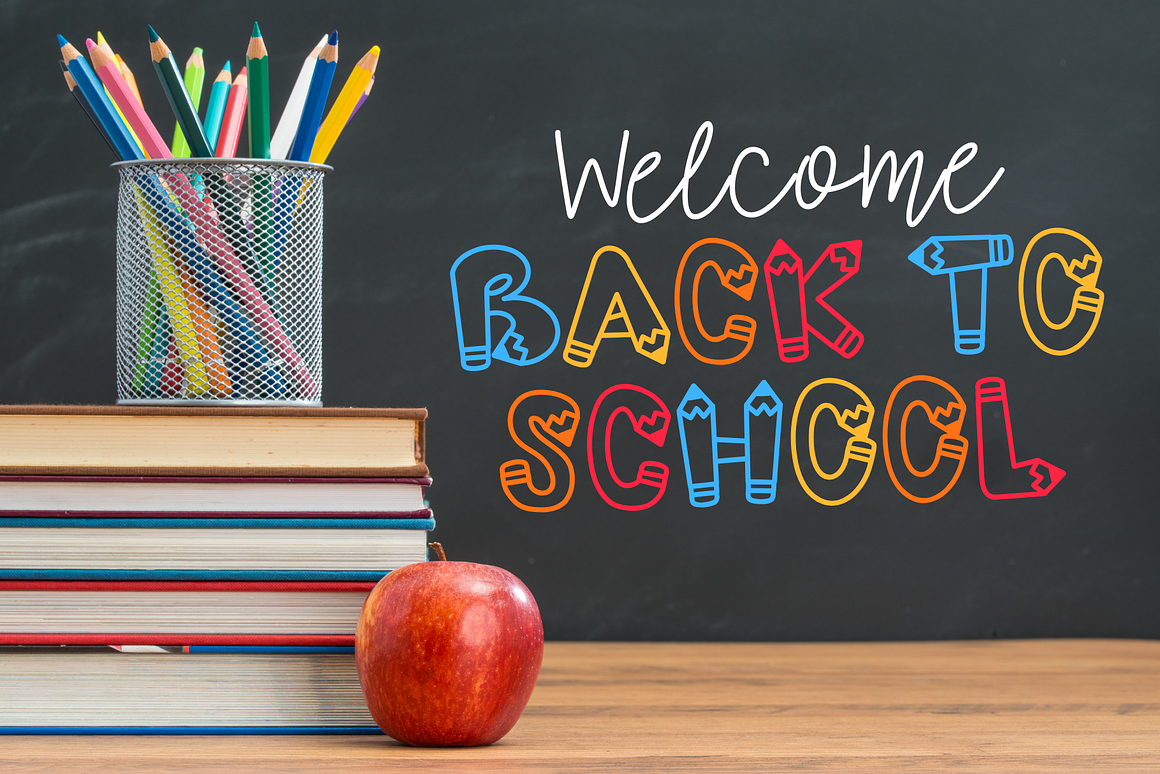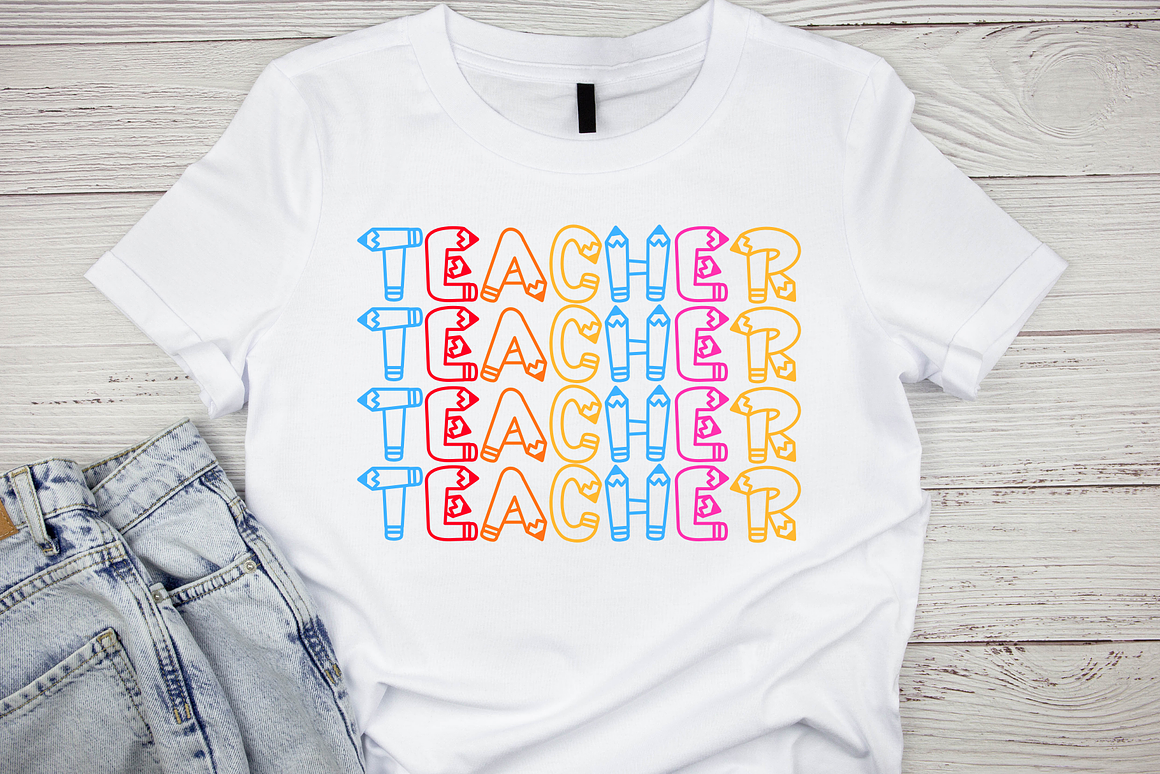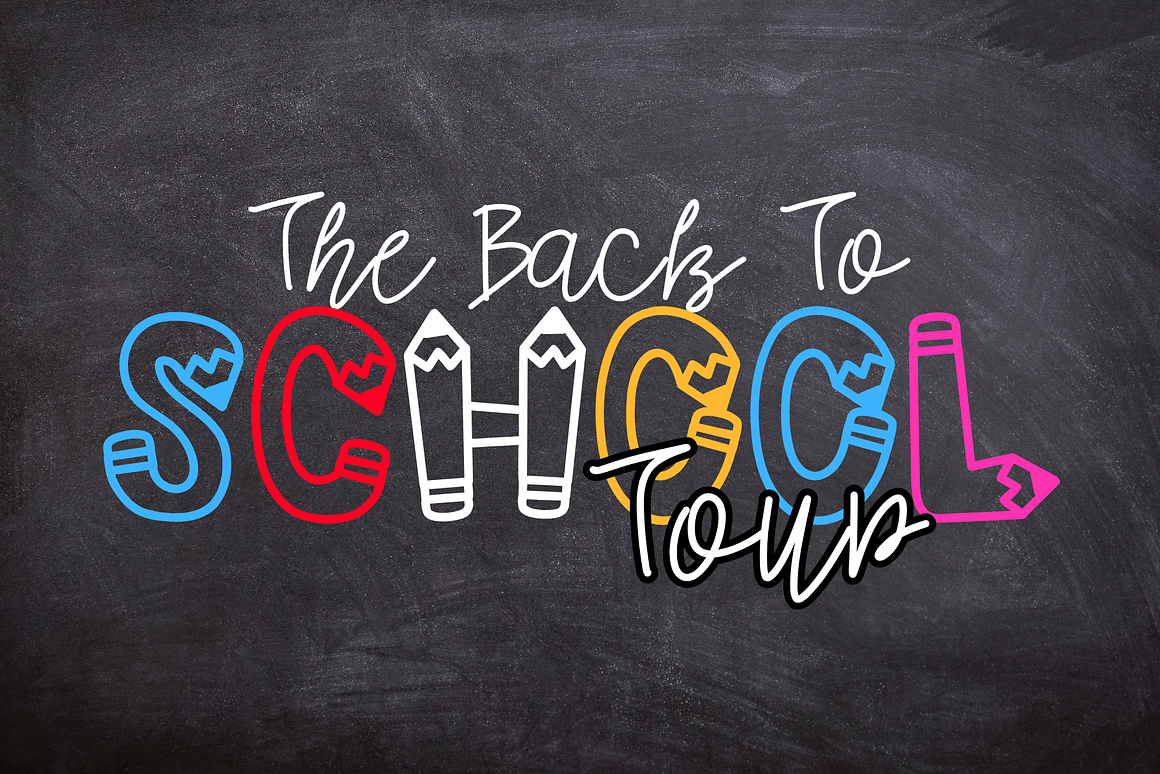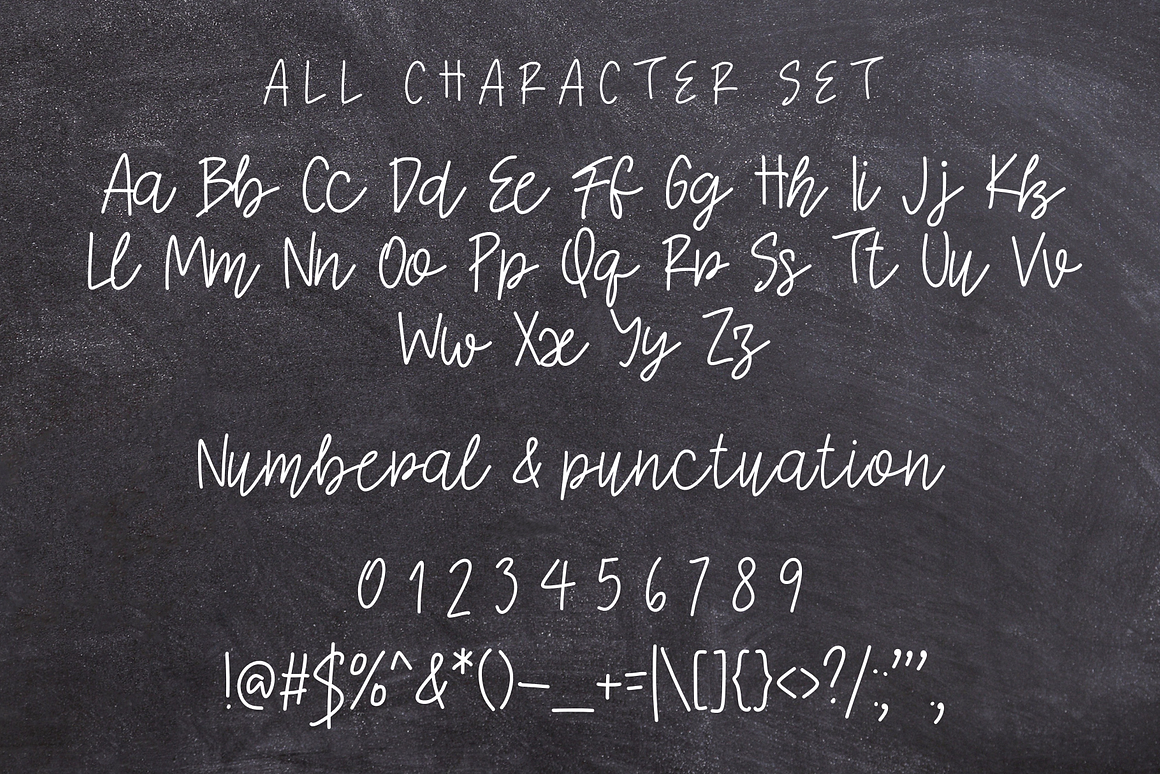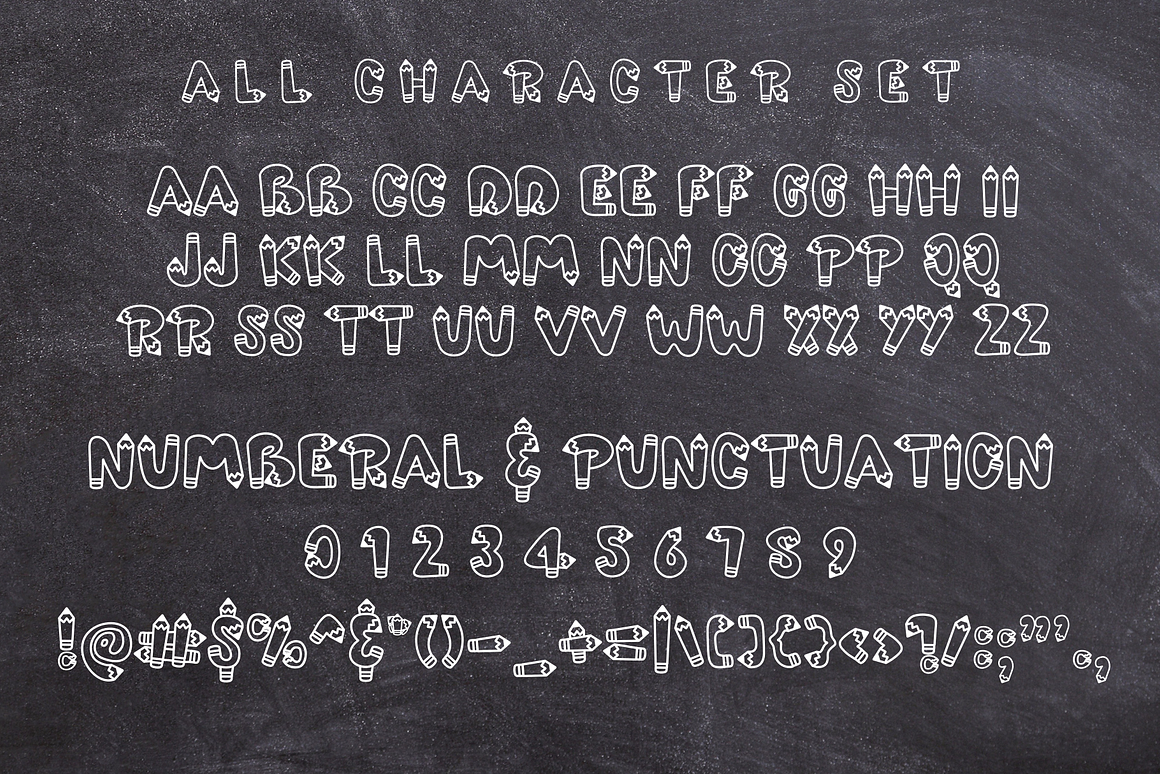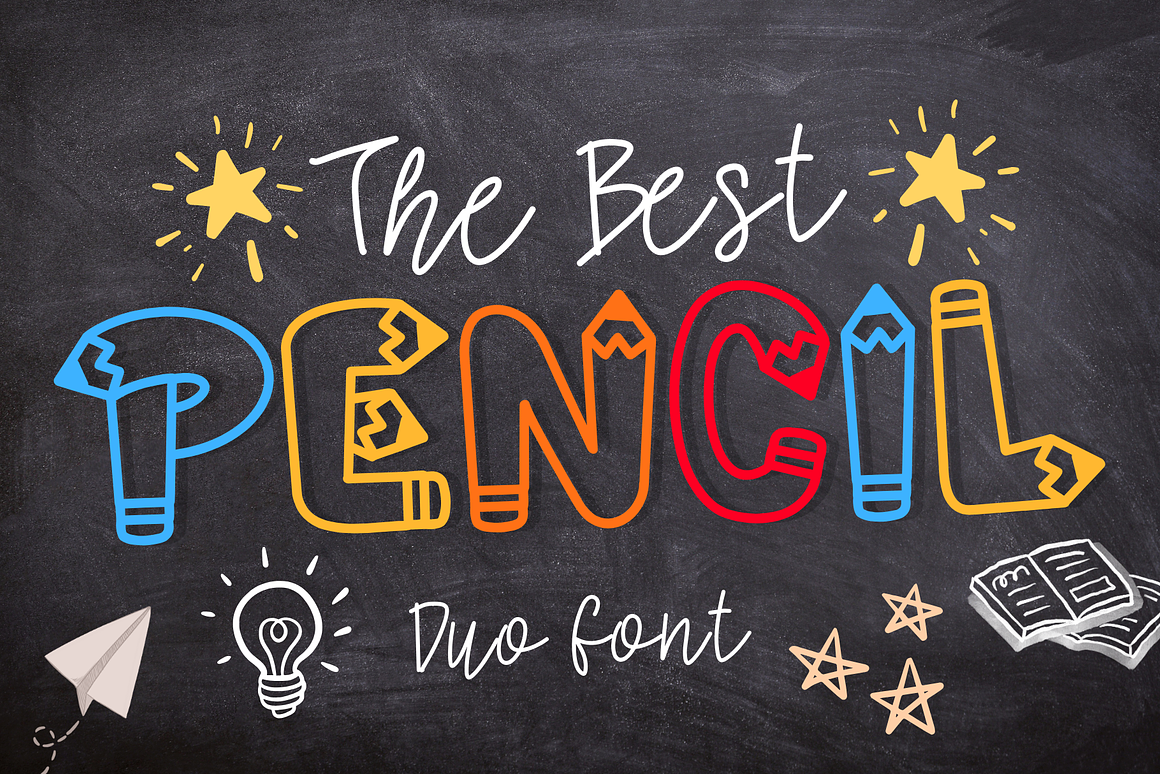
The Best Pencil is a Duo Font
The Best Pencil is a duo font. It embodies playfulness and authenticity and is the perfect choice for all your favorite projects, or even for blog posts, logos, branding, ads, invitations, greeting cards, planners, photo albums, decorations, and much more. Add it to any of your designs, and enjoy the results!